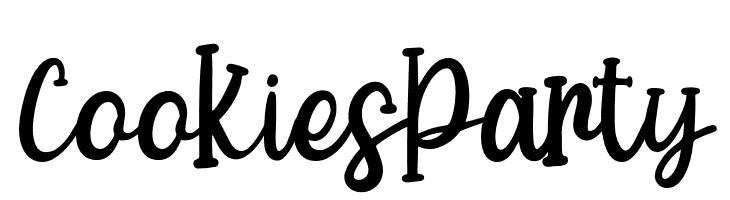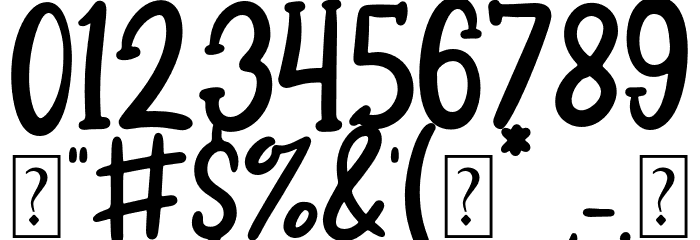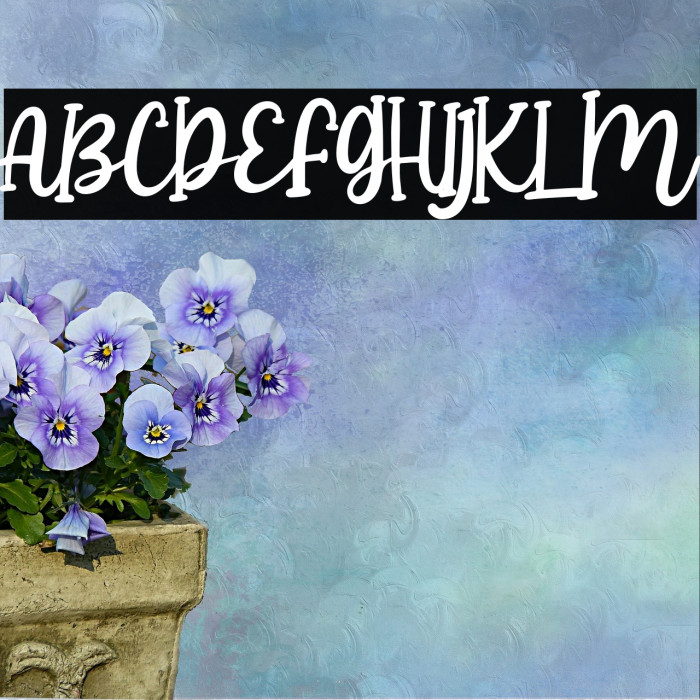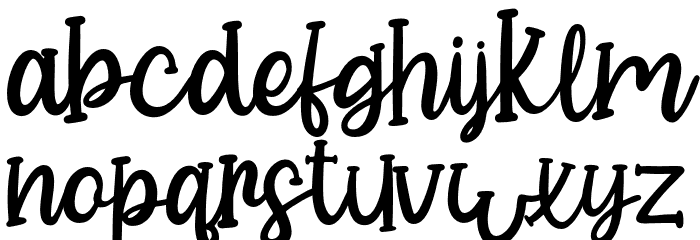
CookiesParty Font
CookiesParty Description
This font features a playful and whimsical script style, characterized by its flowing, connected letters and a hand-drawn appearance. The uppercase letters are bold and prominent, while the lowercase letters maintain a consistent fluidity, adding a touch of elegance and charm. The numerals are rounded and maintain the playful aesthetic, making them easily legible. Special characters are creatively designed, fitting seamlessly with the overall style. The font's overall appearance is casual yet stylish, perfect for adding a personal touch to any project.
A playful, hand-drawn script font with flowing, connected letters from Cartoon fonts.
- Proposed Projects: Ideal for greeting cards, invitations, playful branding, and social media graphics.
- Use Case: Logos, Headlines, Invitations